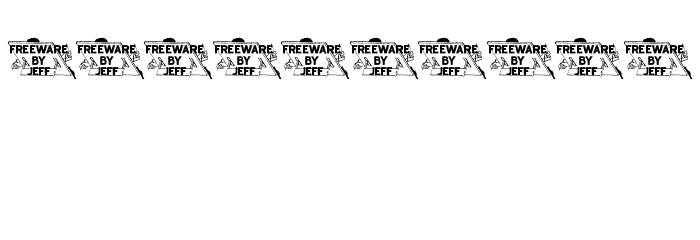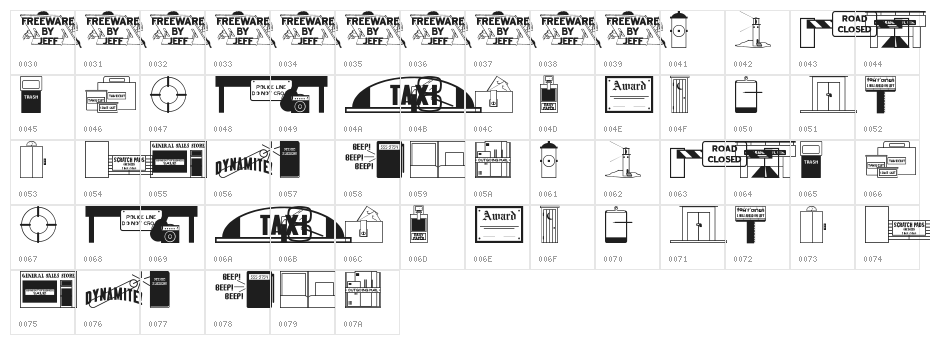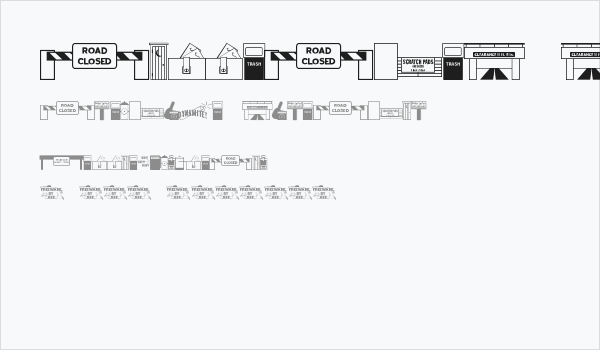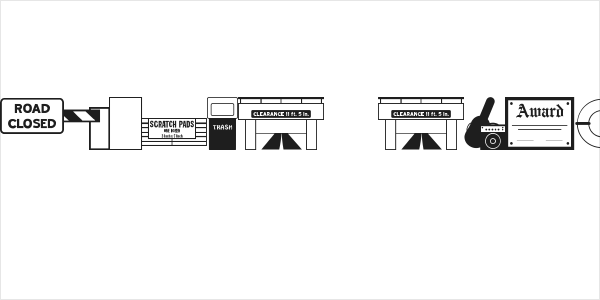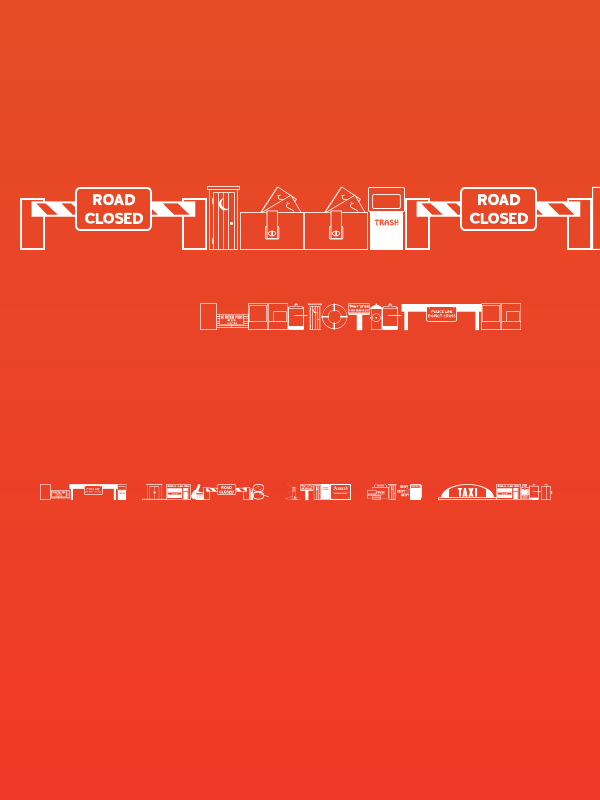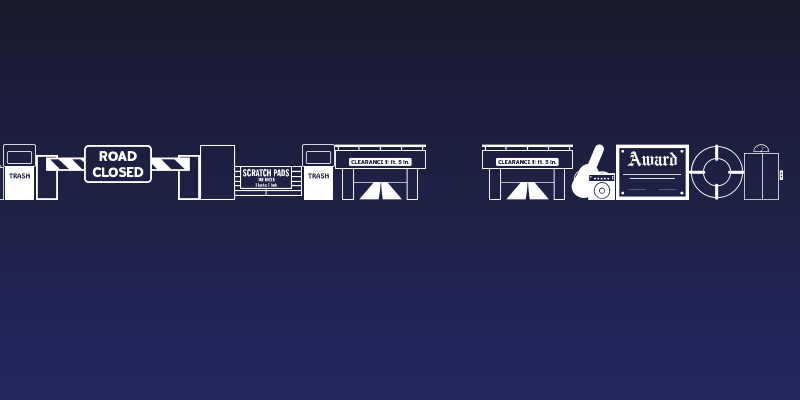
Collected Dings JL Font
Collected Dings JL Description
This collection features a variety of dingbat-style icons, each representing different objects and signs. The icons include road signs, buildings, and various everyday items, all rendered in a bold, graphic style. The elements are detailed and designed to convey a sense of urban and industrial environments. Each icon is distinct, with clear outlines and a consistent visual theme that ties them together. The style is playful yet functional, making it suitable for creative projects that require a touch of whimsy or a retro feel.
| Use Case | Logos, Illustrations, Posters |
| Proposed Projects | Ideal for creative projects such as posters, flyers, and digital graphics that require unique, illustrative elements. |